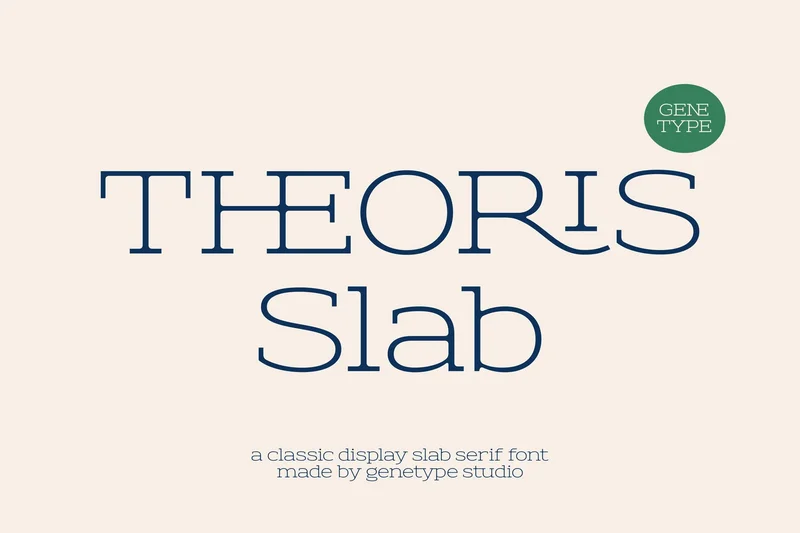
Theoris Slab – Classic Slab Serif Font
Theoris Slab is a refined classic display slab serif typeface that blends timeless elegance with a modern geometric touch. Designed with precise slab details and balanced proportions, Theoris Slab evokes sophistication and versatility — making it ideal for branding, editorial layouts, packaging, and logo design. Its clean structure and subtle curves deliver a professional and trustworthy look that feels both classic and contemporary. Perfect for premium product labels, organic packaging, restaurant identities, or minimal typography systems, Theoris Slab adds character and clarity to every composition. The font includes uppercase and lowercase characters, numerals, punctuation, and multilingual support in OTF, TTF, and WOFF formats. Whether used for magazines, branding, or elegant product design, Theoris Slab offers timeless beauty and modern readability in one distinctive typeface.